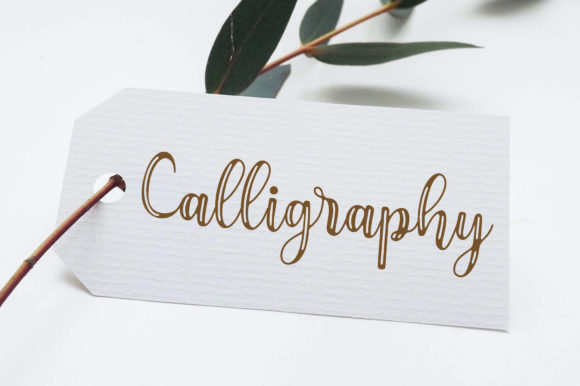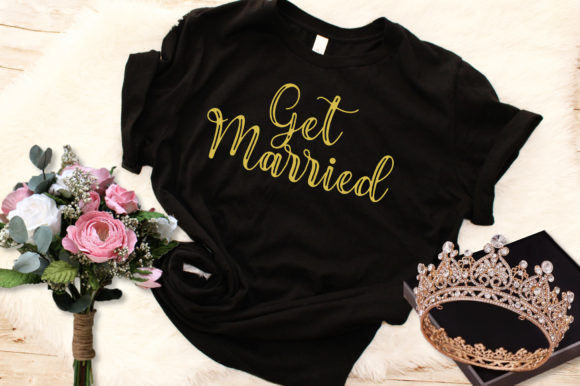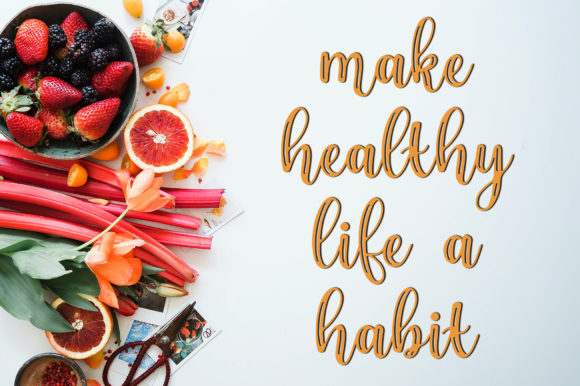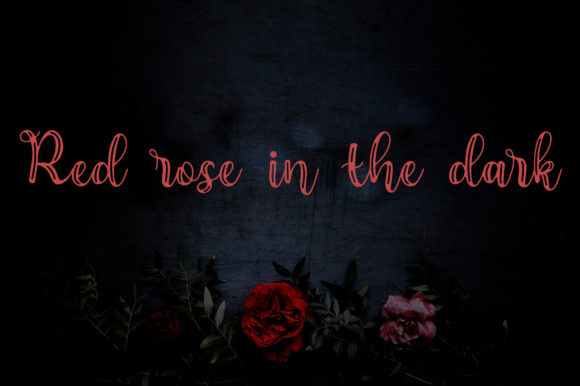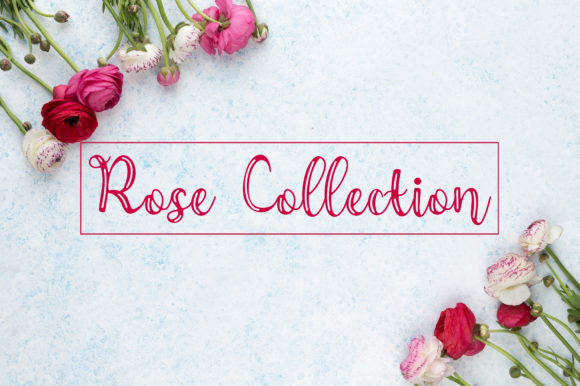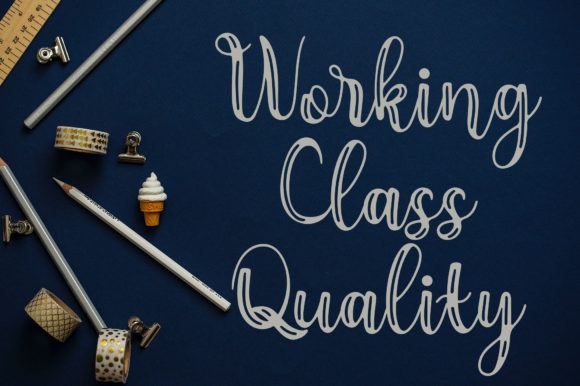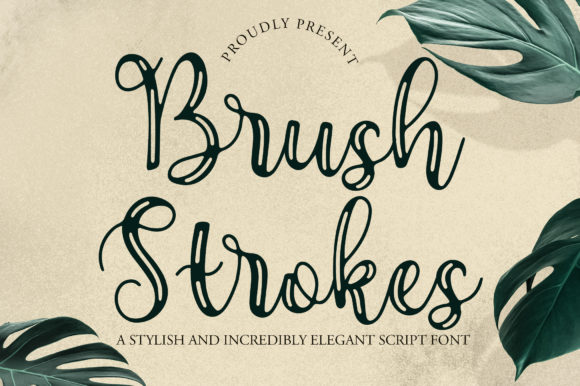
Introducing Brush Strokes Font: Elevate Your Designs with Elegance
Are you a designer or crafter looking for a font that can add a touch of sophistication and whimsy to your projects? Look no further than Brush Strokes, a stylish and incredibly elegant script font. With its beautiful, hand-painted aesthetic, Brush Strokes is perfect for a variety of design applications, from wedding invitations and thank you cards to quotes, greeting cards, logos, and business cards.
The Beauty of Brush Strokes Font
Brush Strokes Font is a true showstopper, with its delicate, cursive strokes and elegant lettering. The font’s unique, hand-painted look gives it a personal and intimate feel, making it perfect for designs that require a touch of warmth and personality. Whether you’re creating a romantic wedding invitation or a heartfelt thank you card, Brush Strokes Font is sure to impress.
What Makes Brush Strokes Font So Versatile?
One of the things that sets Brush Strokes Font apart is its incredible versatility. The font can be used for a wide range of design applications, including:
- Quotes and typographic art
Whether you’re designing for a client or working on a personal project, Brush Strokes Font is a great choice. Its elegant, cursive strokes and beautiful lettering make it perfect for any design that requires a touch of sophistication and whimsy.
Why Designers and Crafters Love Brush Strokes Font
So, why do designers and crafters love Brush Strokes Font? Here are just a few reasons:
- Elegance**: Brush Strokes Font is incredibly elegant, making it perfect for designs that require a touch of sophistication.
- Versatility**: The font can be used for a wide range of design applications, from wedding invitations to logos and branding materials.
- Unique look**: The font’s hand-painted aesthetic gives it a unique and personal look that’s sure to stand out.
Tips for Using Brush Strokes Font
Here are a few tips for using Brush Strokes Font in your designs:
- Pair it with a simple font**: Brush Strokes Font is a statement font, so it’s best paired with a simple font that won’t compete with it.
- Use it for headings**: Brush Strokes Font is perfect for headings and titles, where its elegant strokes and beautiful lettering can really shine.
- Experiment with colors**: Brush Strokes Font looks great in a variety of colors, from soft pastels to rich jewel tones.
- Don’t be afraid to get creative**: Brush Strokes Font is a versatile font that can be used in a wide range of design applications, so don’t be afraid to get creative and try new things.
In conclusion, Brush Strokes Font is a stylish and incredibly elegant script font that’s perfect for designers and crafters looking to add a touch of sophistication and whimsy to their projects. With its beautiful, hand-painted aesthetic and incredible versatility, Brush Strokes Font is a great choice for a wide range of design applications. Whether you’re creating a romantic wedding invitation or a heartfelt thank you card, Brush Strokes Font is sure to impress.